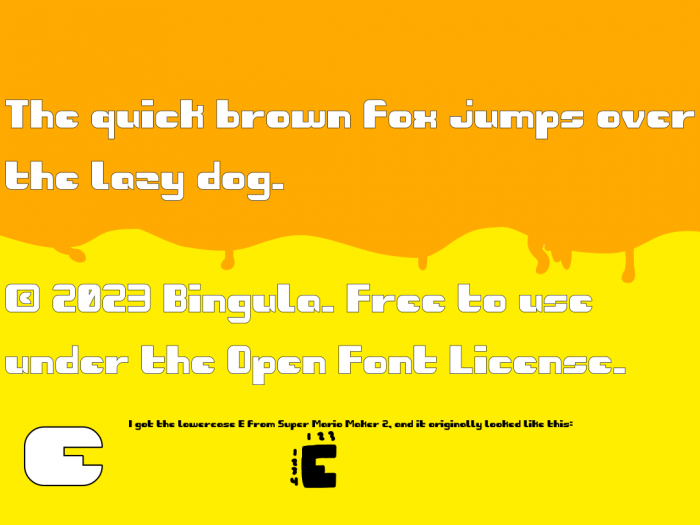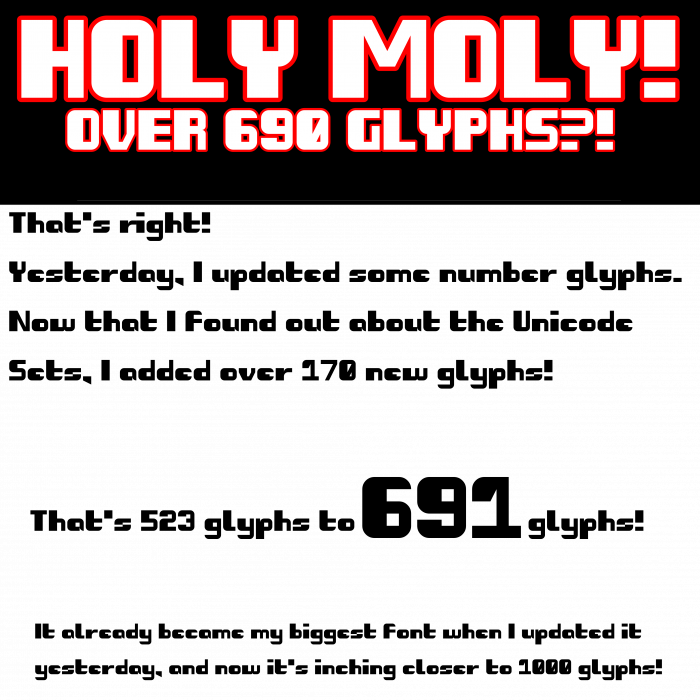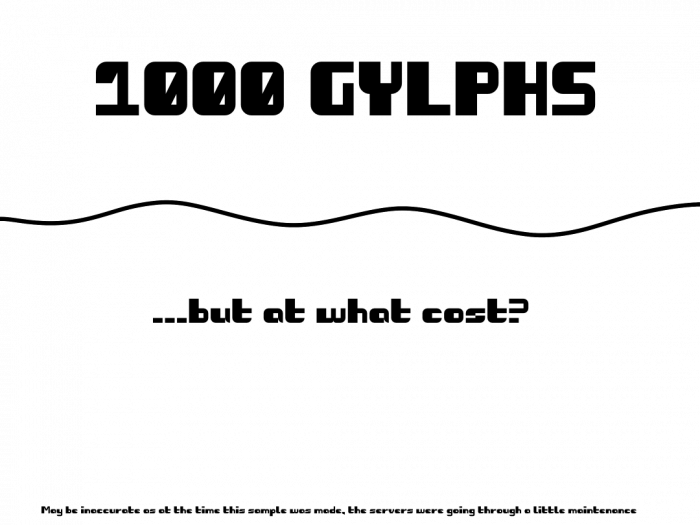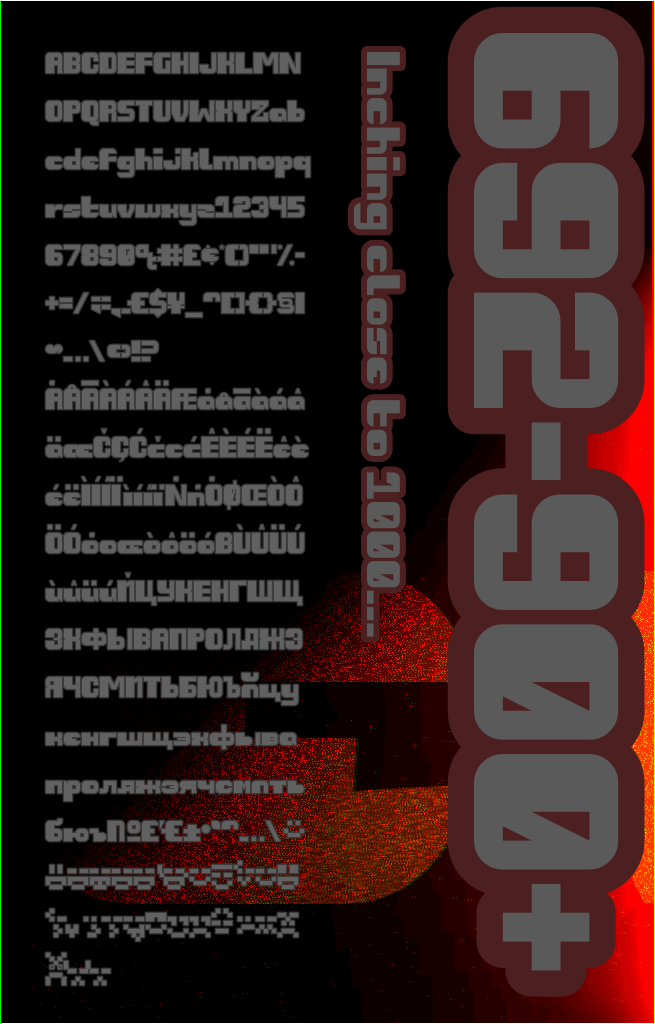
I see some nice solutions here.
@frongile Thanks! Using some of the half and quarter bricks (and some stacking, nudging, and turning into composites), I was able to make the glyphs look like that.
(The glyph count in this "sample" is wrong)
Why am I so dedicated to this font?
Seems to me that some glyphs got corrupted/ brick swapped.
I wonder if you could do something like this for a recycling symbol?
@Sed4tives hmm, I don't remember brickswapping... I think I fixed all of them now, but I'm not sure. I did a double-check.
A little comic I made if my fonts were human.
1091 glyphs, well done, I couldn't have done such a thing as this!
Amazing!!